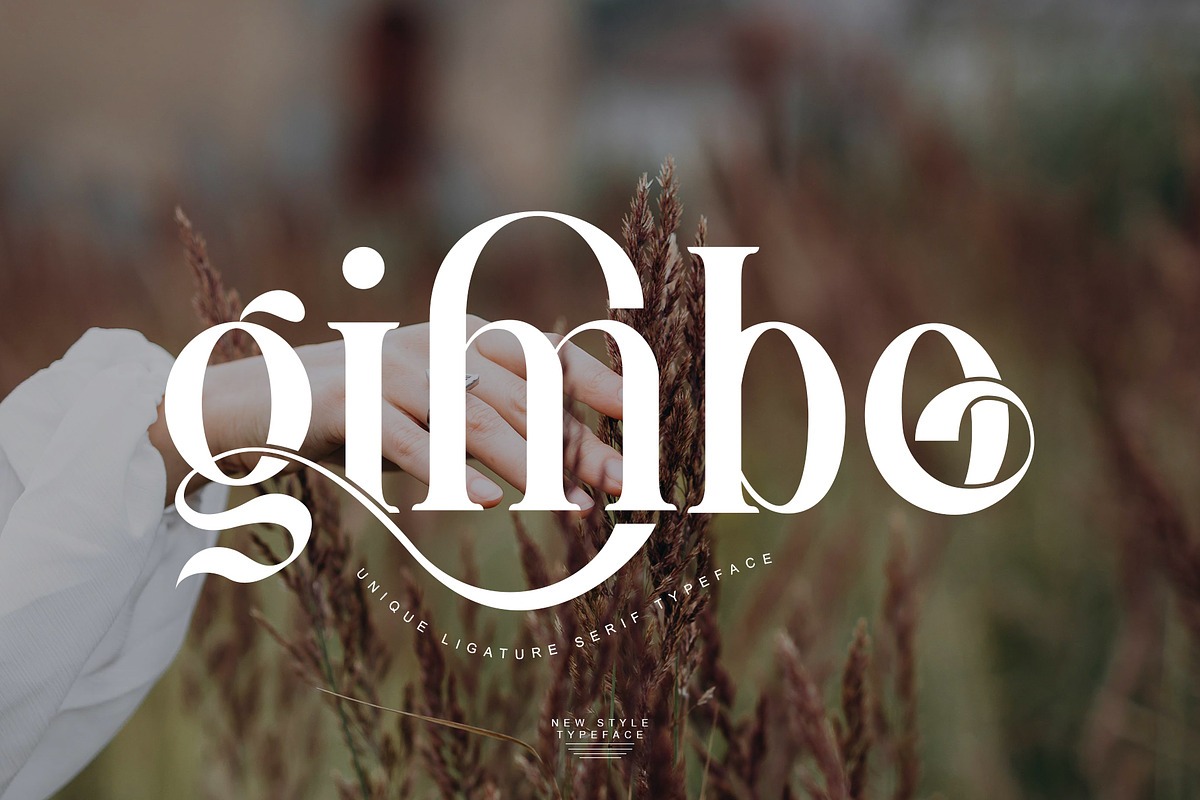
Gimbo Font
Gimbo Font is a versatile font designed to adapt beautifully across different design styles, offering dependable readability and balance. Gimbo is a elegant and classy serif typeface – This font is both modern and nostalgic and works great for logos, magazine, social media. Already matched up and ready to be used together for your next design! For those of you who are needing a touch of elegant, stylish, classy, chic and modernity for your designs, this font was created for you!
Gimbo was built with OpenType features and includes ligatures, numbers, punctuation, and it also supports other languages.